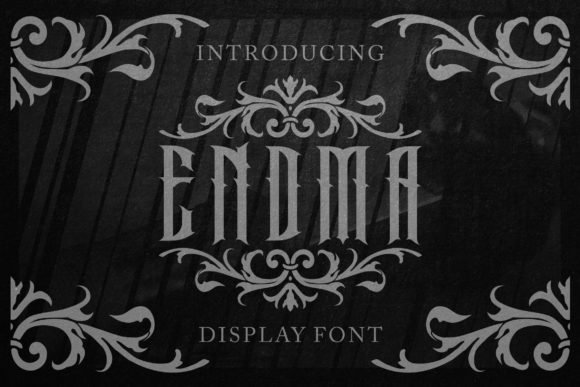
Introduction to Endma Font
Endma is a bold and assertive looking display font.
No matter the topic, this font will be an incredibly asset to your fonts’ library, as it has the potential to elevate any creation .
Key Features of Endma Font
Why Choose Endma Font?
Endma Font offers exceptional quality and versatility, making it a valuable addition to your design toolkit. Whether you’re creating for personal projects or commercial use, Endma Font delivers professional results.